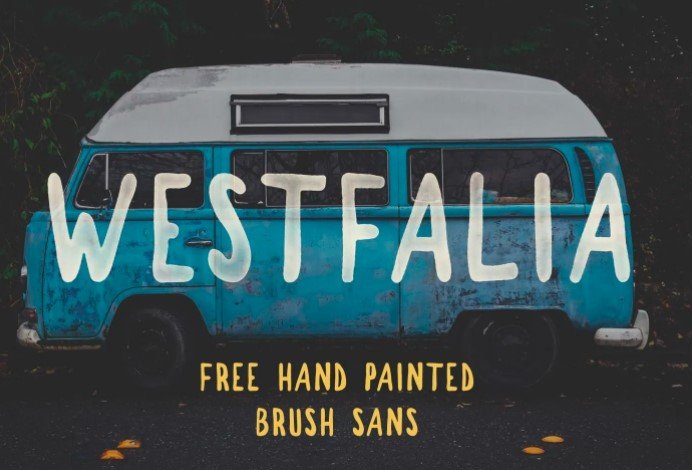
We are excited to present the fantastic Westfalia Hand Painted Font, an ideal typeface for professionals. This font boasts impressive features and is available free of charge.
Its boldest characters letters are designed in such a way that you can design your project in a unique way that you will be observed in the below image, the font has totally positive reviews.
It has thin letterform that can be used with madras font comes with unique stylistic sets, ligatures, super classy layouts that you can used for designing any complex designs for free.
Now, the time is came to view the sample the of great typeface. Below, we shared an image that contains the glyphs and characters of this amazing font which creates best designs in Adobe photoshop and Adobe Illustrator.
It has bottom thin characters designed which is perfectly fine for making posters, banners, covers and also the perfect typographic projects as well.
You can use its pairing feature with the combination of hero font all of its 200 glyphs and punctuator in delivering the best design to your customer. There lots of satisfied graphic designers who loved this awesome font.
Style Brush
The Westfalia Hand Painted Font is the famous and amazing typeface which was product by Rambler Creative.